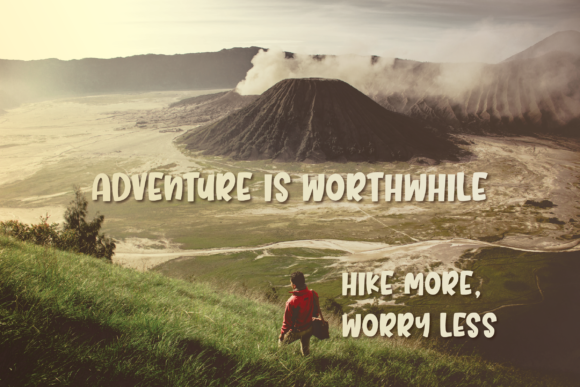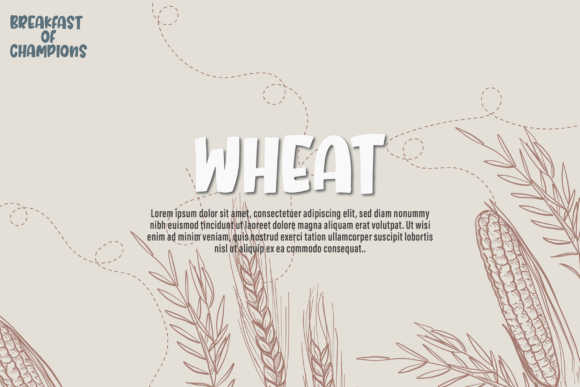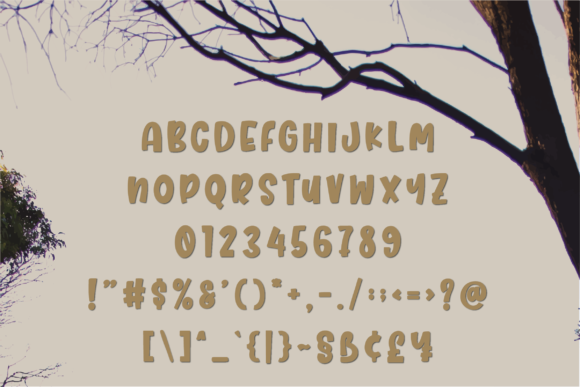
Discover the Delightful Danthie Font: Elevate Your Crafting Designs with a Happy and Quirky Sans Serif
In the world of crafting and design, the right font can make all the difference. It can add a touch of personality, convey a sense of style, and elevate your project from ordinary to extraordinary. If you’re on the hunt for a font that embodies happiness, quirkiness, and modern charm, look no further than Danthie. This delightful sans serif font is designed to bring a smile to your face and a dash of cuteness to your designs.
The Danthie Difference: A Happy and Quirky Sans Serif Font
Danthie is more than just a font – it’s an experience. With its clean lines, rounded edges, and playful vibe, this sans serif font is perfect for crafters, designers, and anyone looking to add a bit of whimsy to their projects. Whether you’re working on a DIY tutorial, a crafting pattern, or a branding project, Danthie is sure to bring a sense of joy and modernity to your design.
So, what sets Danthie apart from other fonts? Here are just a few of its standout features:
• Cute and Modern: Danthie is the perfect blend of cute and modern. Its rounded edges and soft curves give it a friendly, approachable feel that’s hard to resist.
• Happy and Quirky: This font is designed to put a smile on your face. Its playful vibe and carefree spirit make it perfect for projects that require a bit of personality.
• Versatile: Danthie is incredibly versatile, making it suitable for a wide range of projects, from crafting and DIY tutorials to branding and marketing materials.
• Easy to Read: Despite its playful nature, Danthie is incredibly easy to read, making it perfect for body text, headings, and titles.
Elevate Your Crafting Designs with Danthie
So, how can you use Danthie to take your crafting designs to the next level? Here are just a few ideas to get you started:
• Crafting Tutorials: Use Danthie to add a touch of personality to your crafting tutorials. Whether you’re sharing a knitting pattern or a DIY guide, this font is sure to make your project stand out.
• Branding and Packaging: If you’re a crafter or maker, Danthie can help you create a cohesive brand identity. Use it for your logo, packaging, and marketing materials to add a bit of whimsy and charm.
• Social Media Graphics: Danthie is perfect for social media graphics, from Instagram posts to Facebook headers. Its playful vibe and modern charm make it sure to grab attention and drive engagement.
• Stationery and Invitations: Add a touch of cuteness to your stationery and invitations with Danthie. This font is perfect for wedding invites, birthday cards, and other special occasions.
Tips for Using Danthie Effectively
To get the most out of Danthie, here are a few tips to keep in mind:
• Pair it with Other Fonts: Danthie pairs well with a variety of fonts, from bold and chunky to elegant and scripted. Experiment with different combinations to find the perfect look for your project.
• Use it for Headings and Titles: Danthie’s playful vibe makes it perfect for headings and titles. Use it to add a touch of personality to your project and draw attention to important information.
• Experiment with Colors: Danthie looks great in a variety of colors, from bright and bold to soft and pastel. Experiment with different colors to find the perfect look for your project.
In conclusion, Danthie is a happy and quirky sans serif font that’s sure to bring a touch of modern charm and cuteness to your crafting designs. With its clean lines, rounded edges, and playful vibe, this font is perfect for crafters, designers, and anyone looking to add a bit of whimsy to their projects. So why not give Danthie a try and see the difference it can make in your designs?